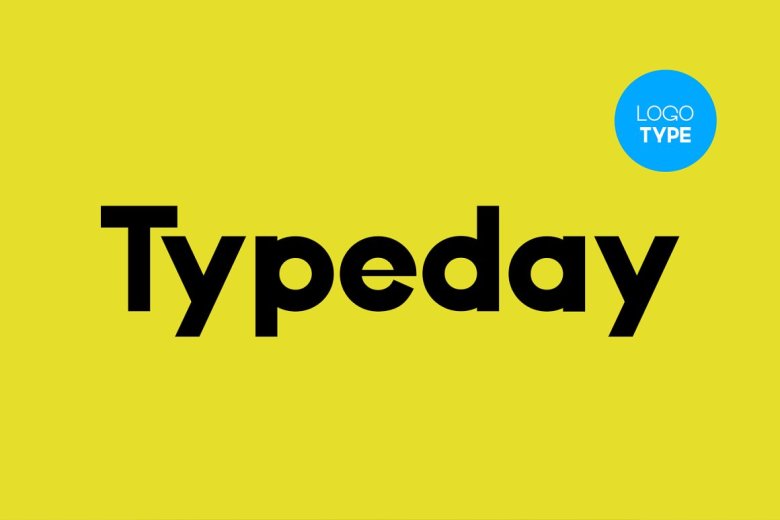
Typeday Font
Typeday is a font family of many possible uses. When it comes to elegant logos, web design, quotes, magazine covers, wedding cards, invitations and branding, this font can do everything. Unfortunately its low-contrast form may not work well with too many bold headlines or large text projects but doesn’t mean that there are no more functions for it at all – just check out the Wide version instead.
Typeday’s 9 weights with 350+ glyphs give you unlimited flexibility to create any style that suits your project needs, making it the perfect choice for many applications.
Typeday Sans Serif Font